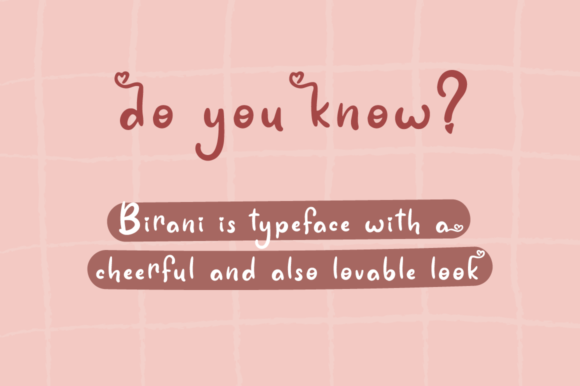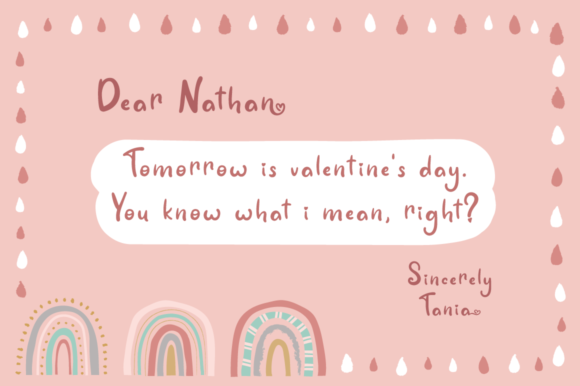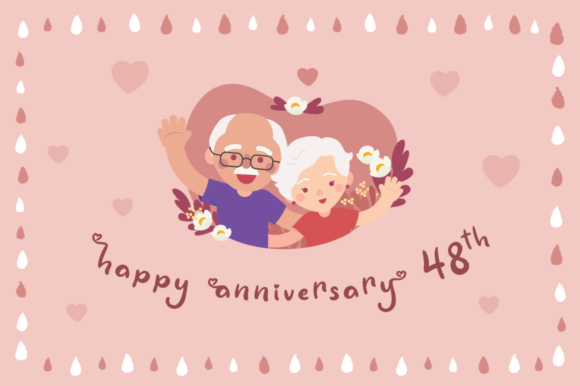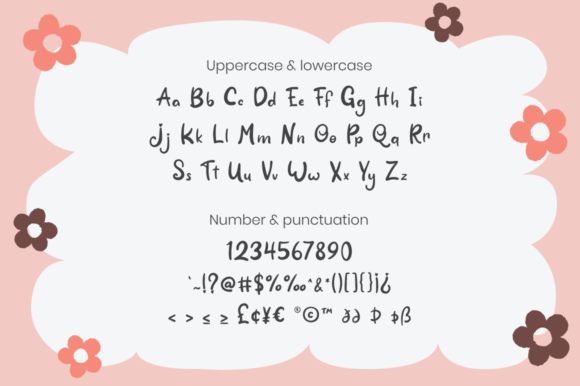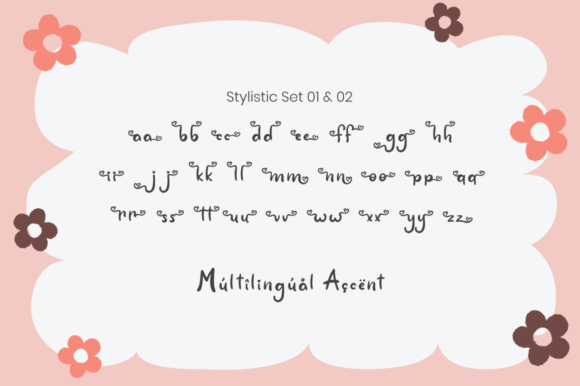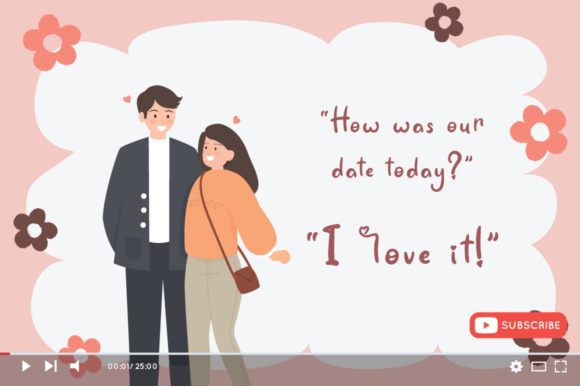
The Perfect Font for Love and Romance: Introducing Birani Font
As I sat down to work on a Valentine’s Day project, I found myself daydreaming about the perfect font to capture the essence of love and romance. I wanted something that would transport my audience to a world of elegance and sophistication, something that would make their hearts skip a beat. And then, I stumbled upon the Birani Font – a lovely script font with swash on beginning and ending words that left me breathless.
Designed with love and romance in mind, the Birani Font is perfect for creating beautiful and intricate designs for weddings, Valentine’s Day, and other special occasions. Its unique swash and script style make it a valuable tool for designers looking to add a touch of elegance and sophistication to their work. Whether you’re a professional designer or a hobbyist, the Birani Font is sure to inspire you to create something truly special.
Birani Font Key Features
- Font Family: Birani is a unique, custom-designed font family, ideal for use in digital and print media.
- Unique Characteristics: Birani font features a distinctive, hand-crafted aesthetic with intricate details and ornaments, setting it apart from other font families.
Birani Font Review
Overall, I think Birani Font has some great qualities, but it also has some areas for improvement. ✨
- ✨ Unique and elegant design: Birani Font has a distinctive and beautiful aesthetic that sets it apart from other fonts.
- ✨ Versatile: It can be used for a variety of purposes, from body text to headings and titles.
- ✨ High-quality: The font is well-made and looks great at various font sizes.
- ⚠️ Limited language support: Birani Font may not support all languages, which can be a limitation for international projects.
- ⚠️ Not ideal for small text: While the font looks great at larger sizes, it can be difficult to read at smaller sizes.
- ⚠️ May not be suitable for all genres: Birani Font’s elegant design may not be the best fit for projects that require a more casual or playful tone.
Overall, I think Birani Font is a solid choice for designers who want a unique and elegant font for their projects. However, it’s essential to consider the limitations and ensure that it’s the right fit for your specific needs.
To get the most out of the Birani font, try the following:
- Use it in combination with other elegant fonts for a sophisticated look.
- Experiment with different text styles and sizes to create visual interest.
- Use it for titles, headings, and other emphasis text to draw attention.
The Birani font is perfect for:
- Formal event invitations and announcements.
- Magazine and book